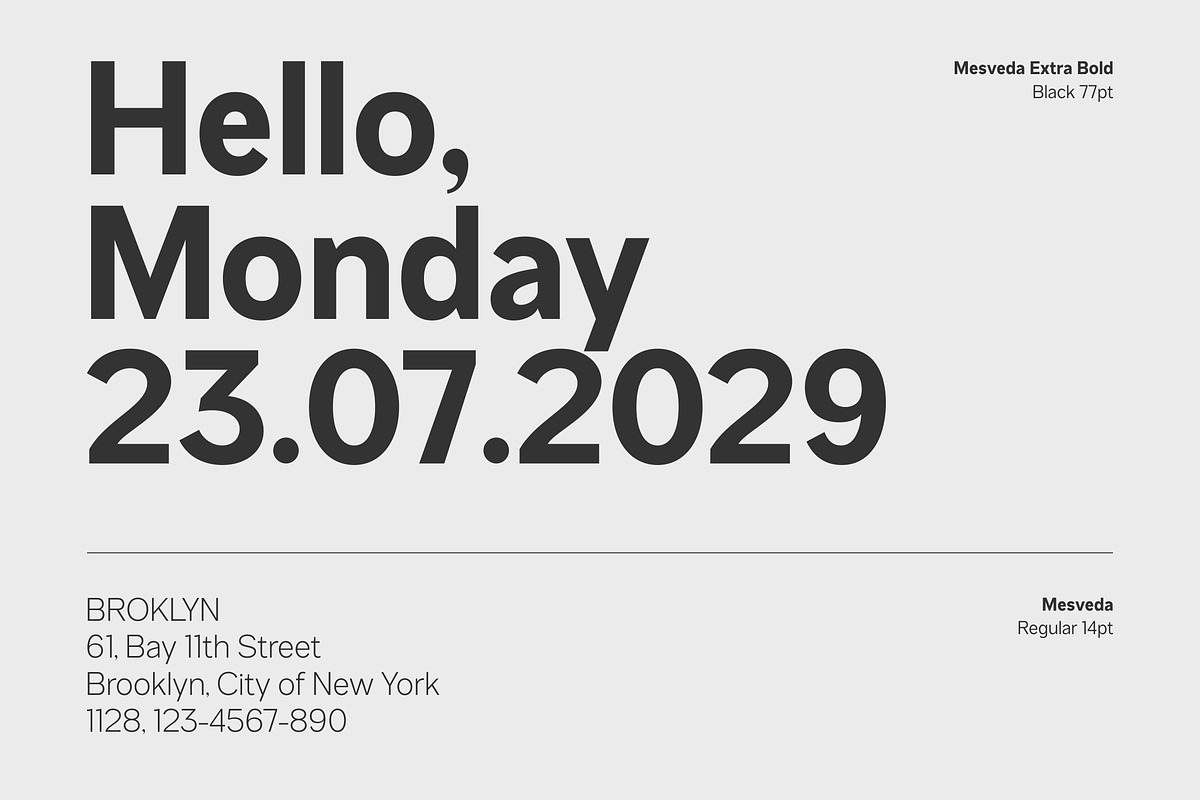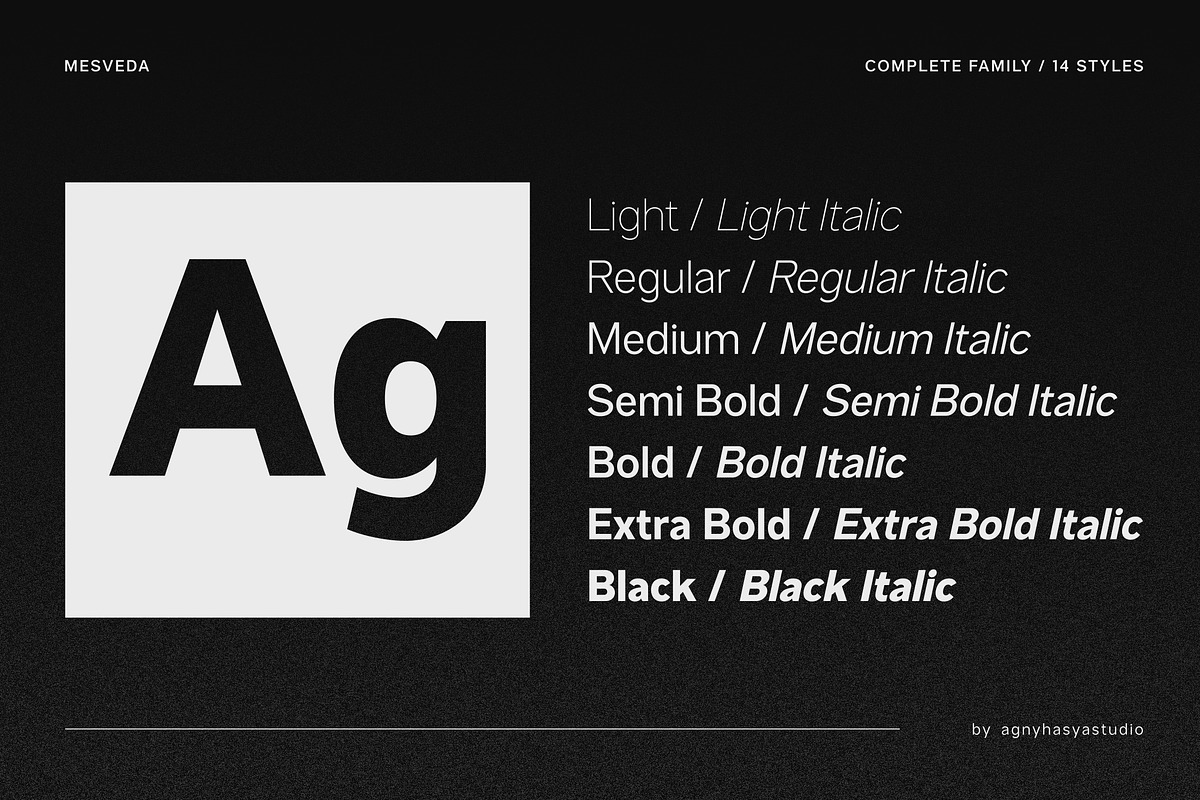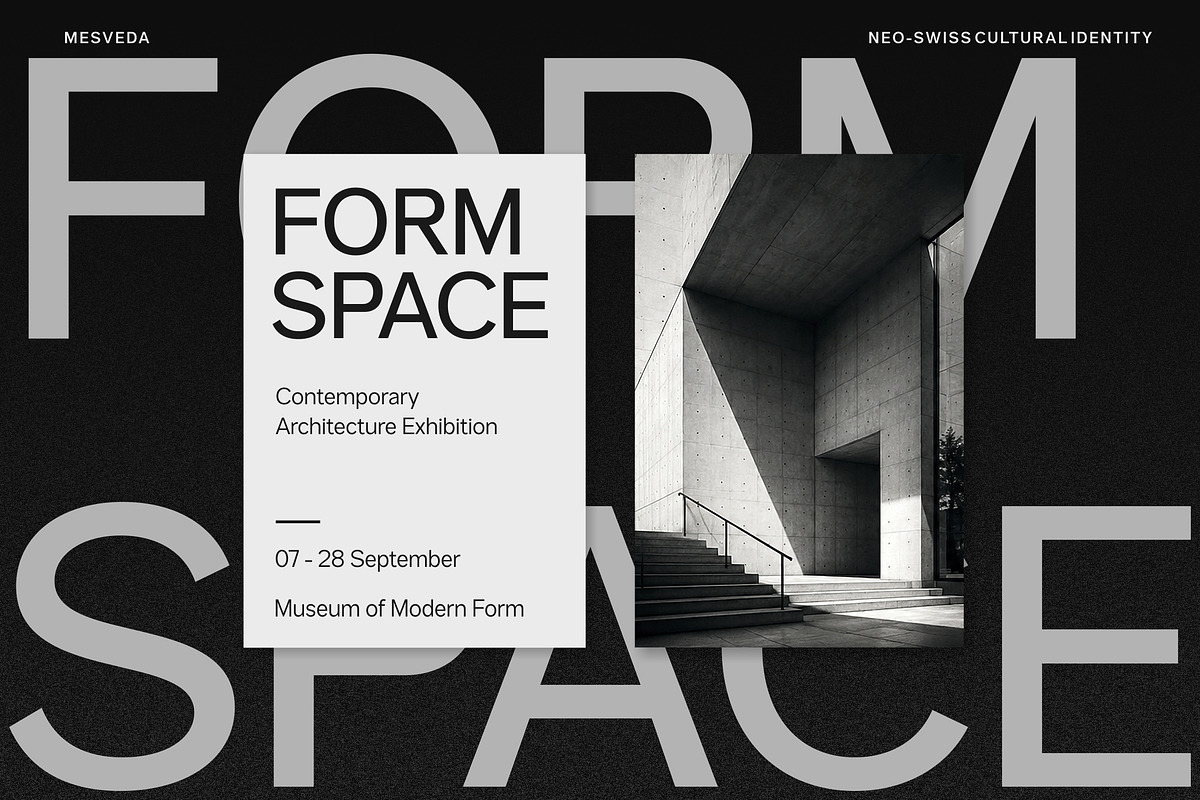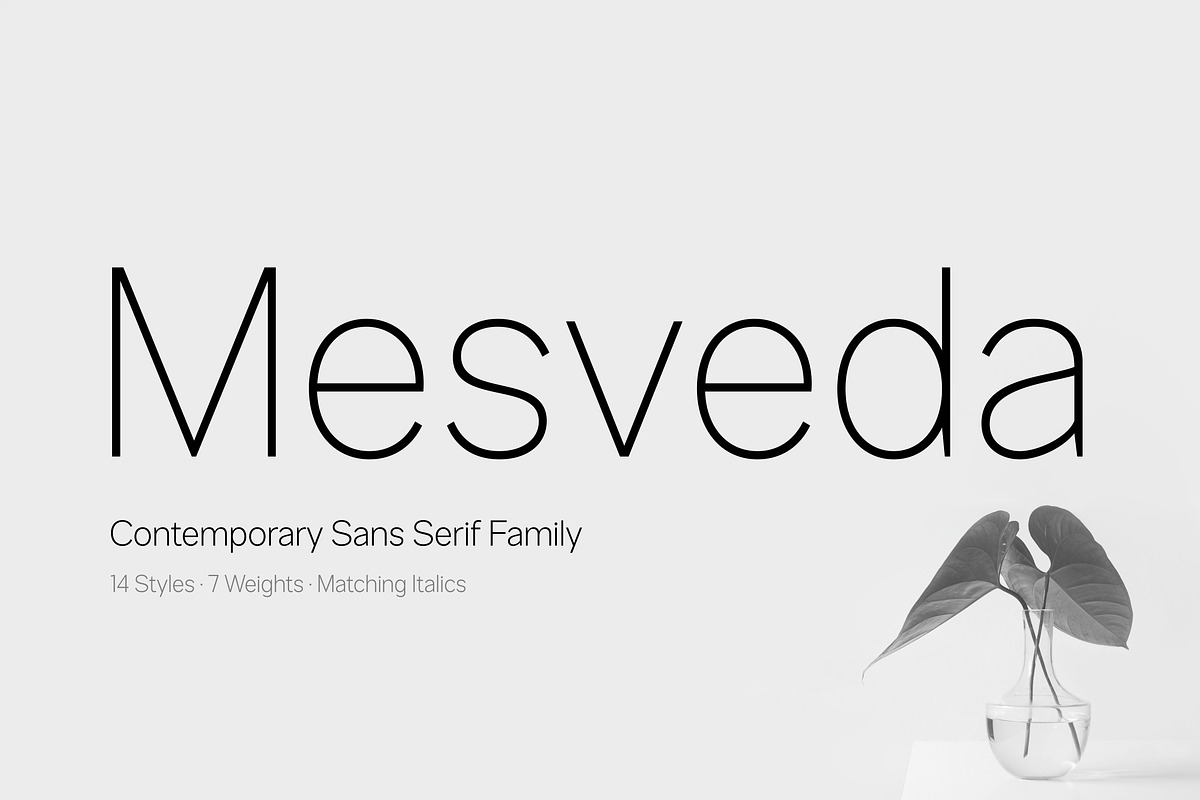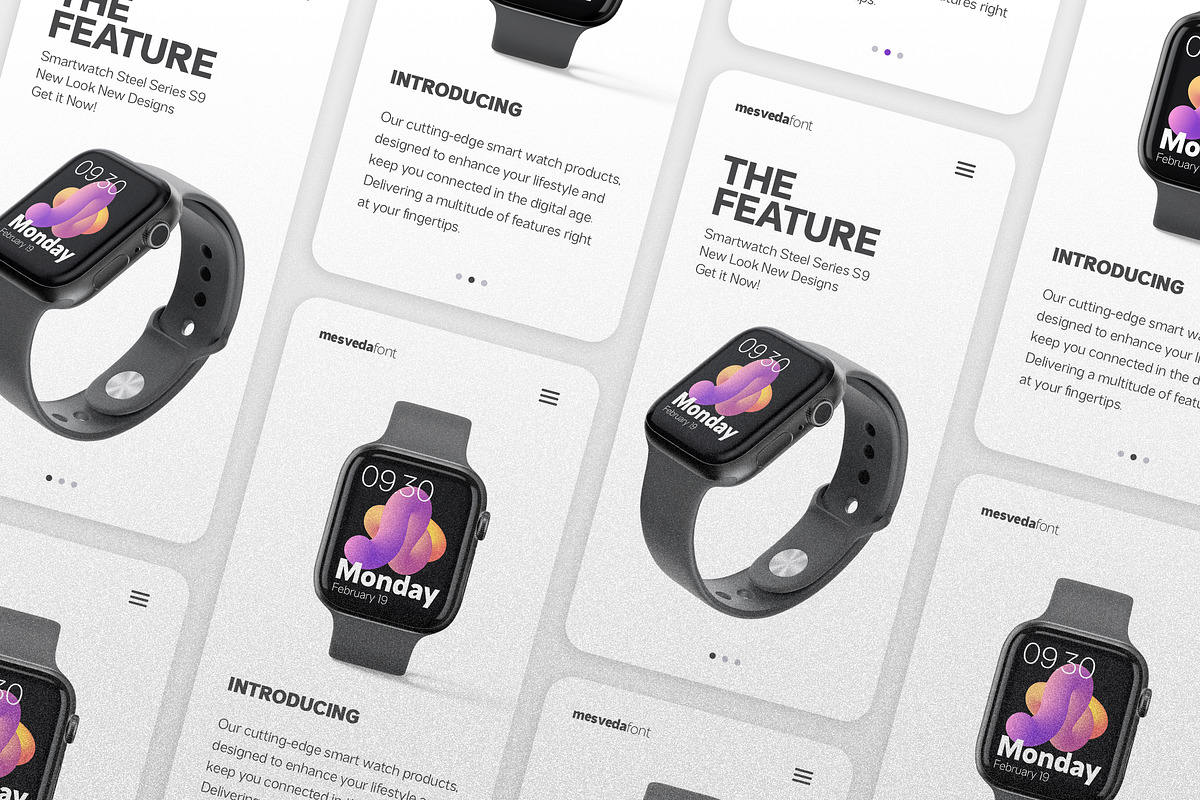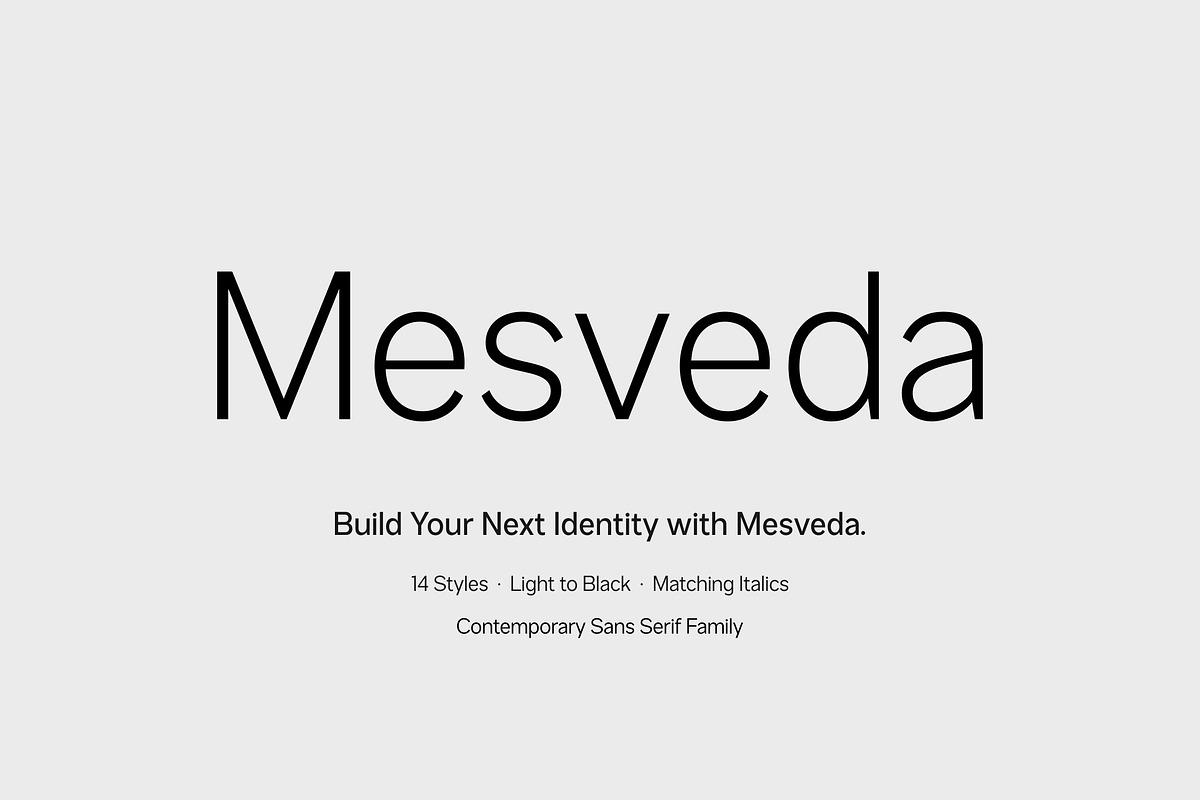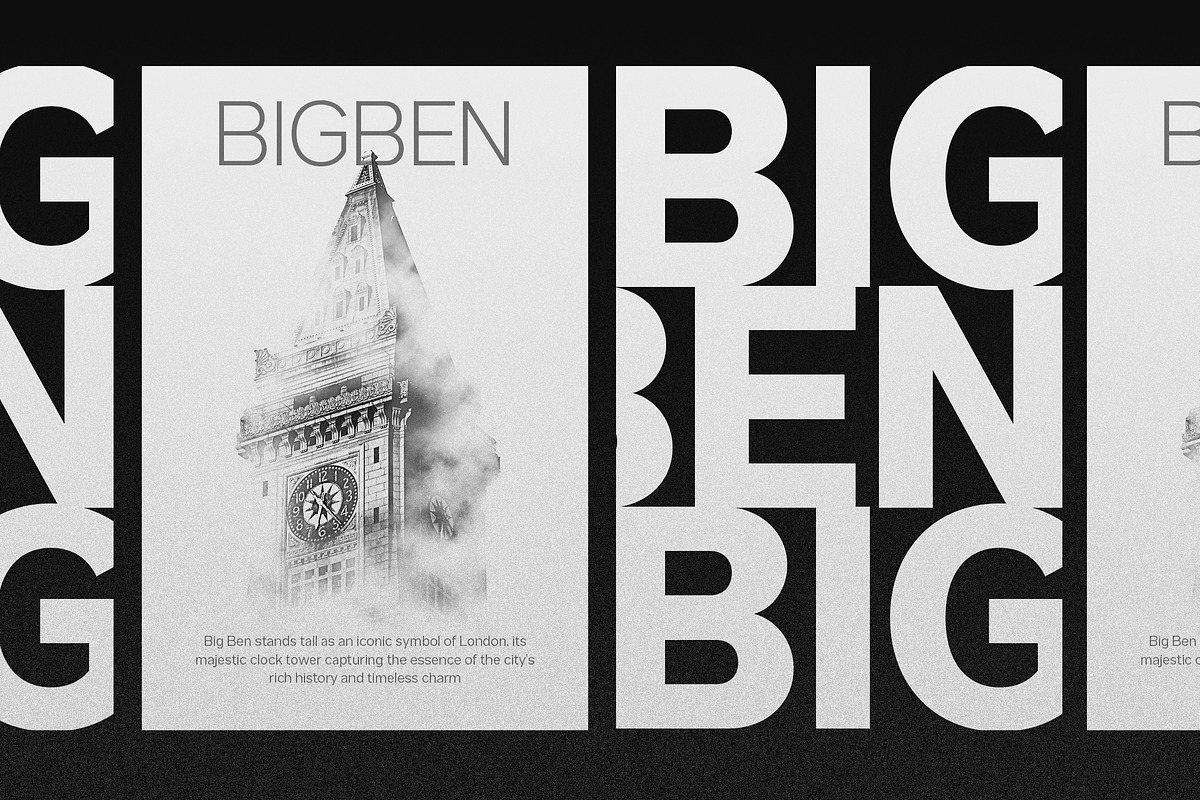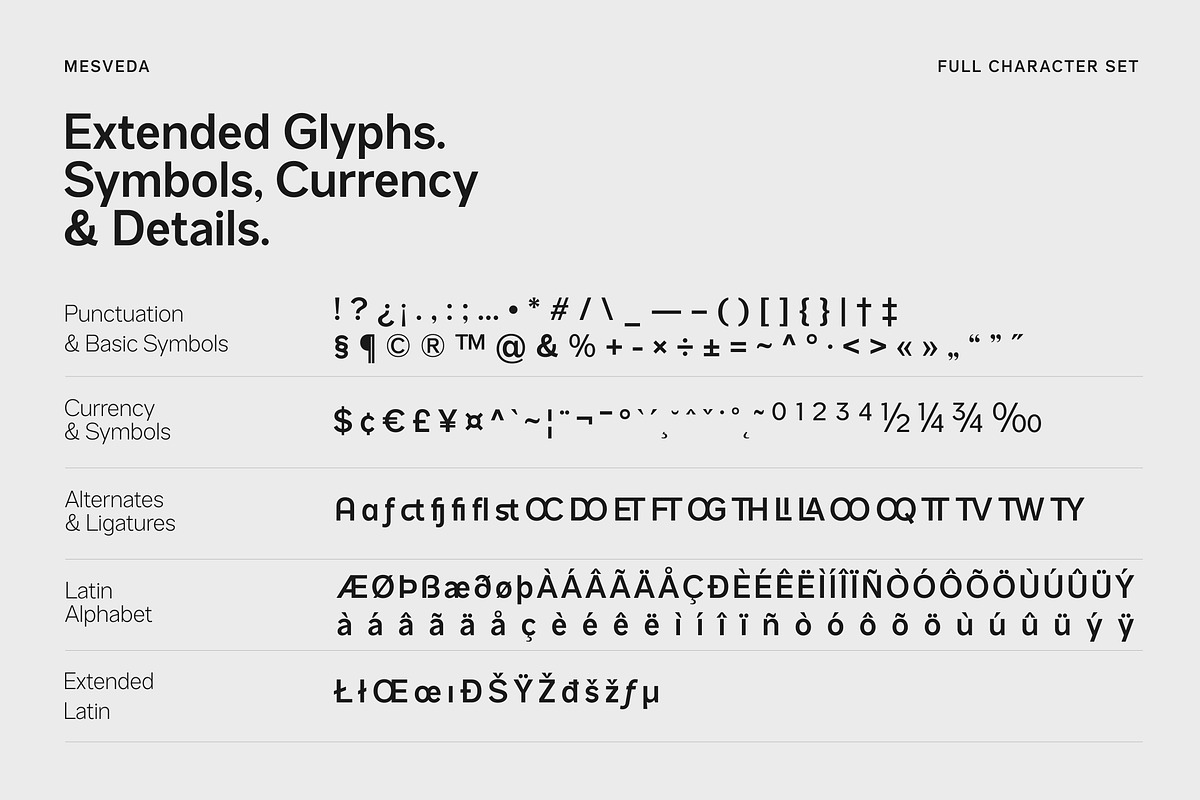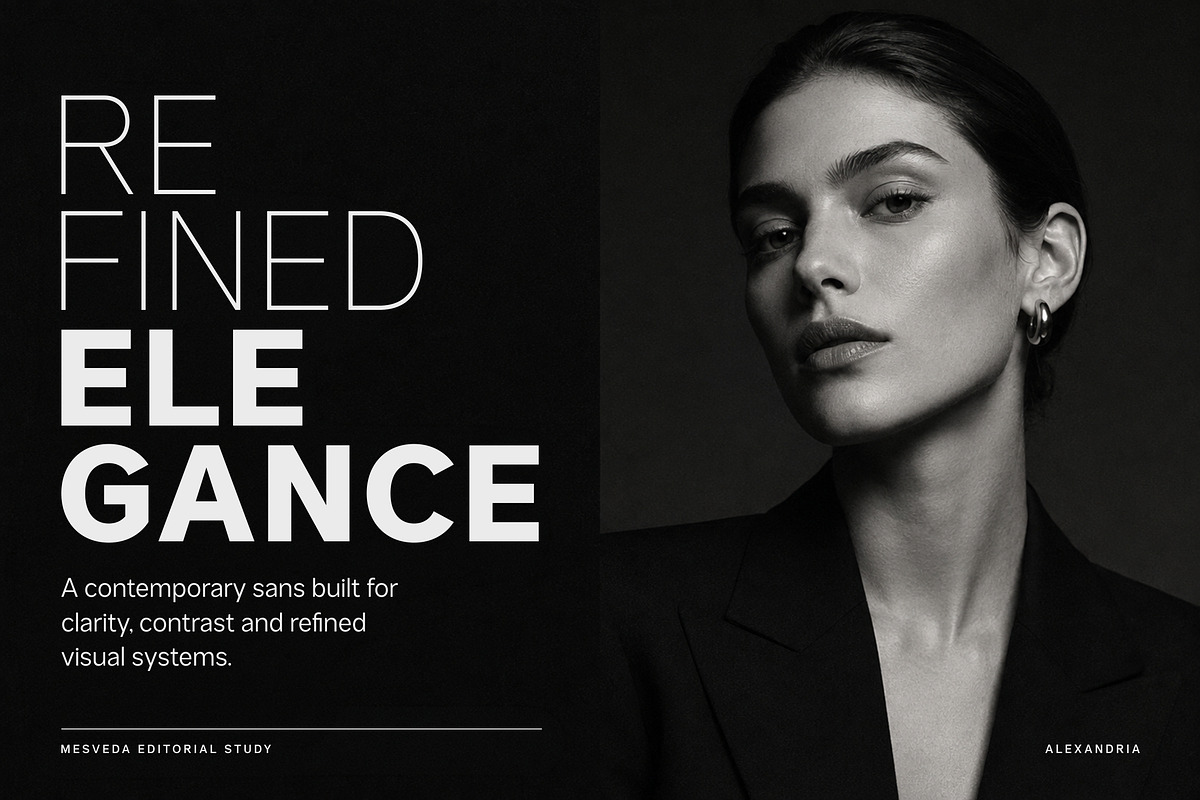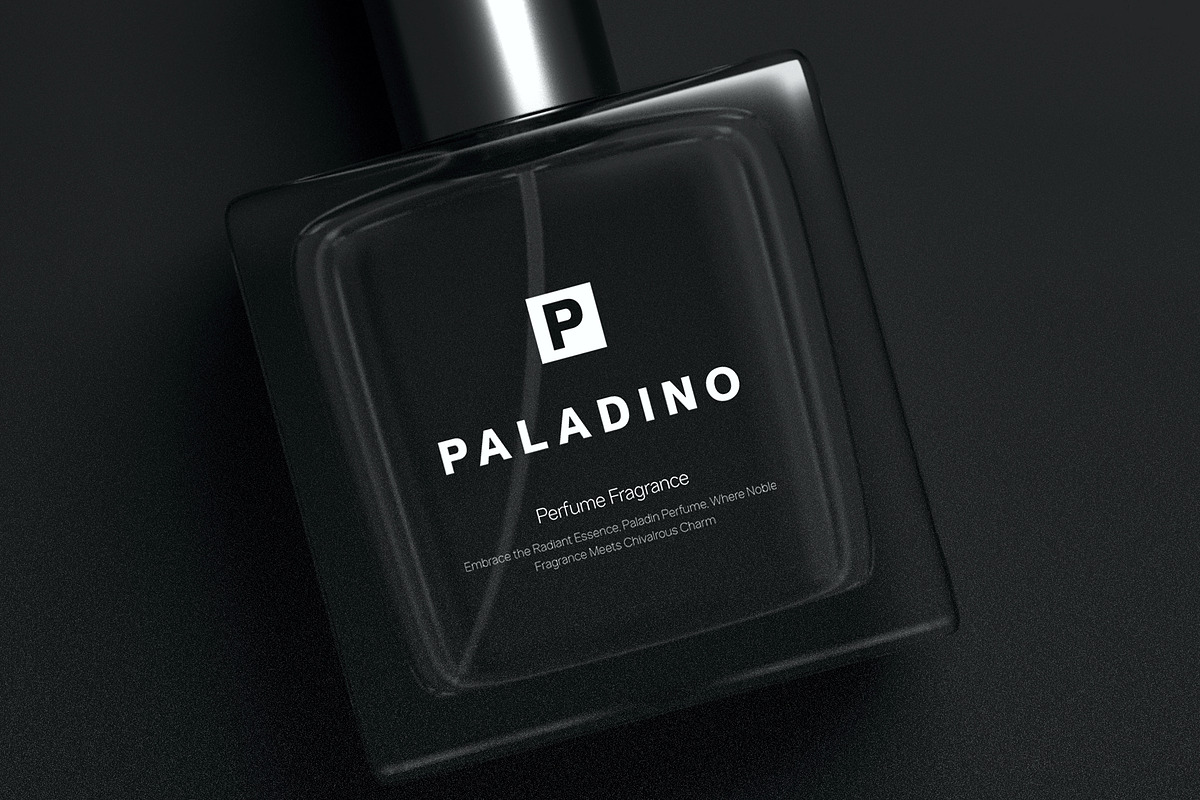
Mesveda - Contemporary Sans Serif
Build a Complete Visual Identity with One Sans Serif Family
Meet Mesveda, a refined contemporary sans serif family created for branding systems, editorial design, packaging, websites, digital interfaces, campaigns, and professional communication.
Clean without feeling sterile and minimal without losing personality, Mesveda gives modern brands a flexible typographic voice that works consistently across print and digital applications.
14 Styles, One Cohesive Visual Language
Mesveda includes 14 coordinated styles: 7 upright weights from Light to Black, each with a matching Italic.
Use lighter weights for refined editorial layouts, premium packaging, and spacious compositions. Regular through Semi Bold handle everyday hierarchy, websites, interfaces, presentations, and brand communication, while Bold through Black deliver stronger impact for campaigns, posters, packaging, and large headlines.
Matching Italics add movement and emphasis without breaking the family’s visual consistency.
Brand identities, logos, and visual systems
Editorial and magazine layouts
Fashion, lifestyle, and product packaging
Corporate communication and brand guidelines
Advertising, posters, and promotional graphics
Websites, landing pages, UI, and UX design
Presentations, social media, and agency projects
14 coordinated styles
7 upright weights + 7 matching Italics
Alternate characters and standard ligatures
Numerals, punctuation, currency, and math symbols
Extended Latin and multilingual support
Create a More Cohesive Visual System